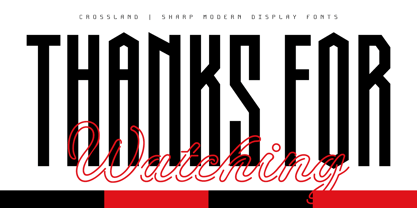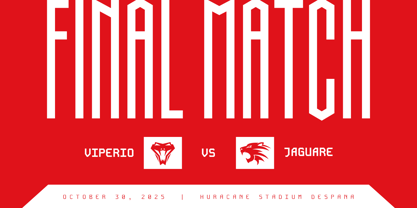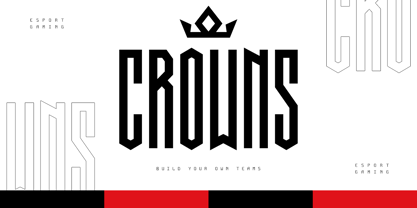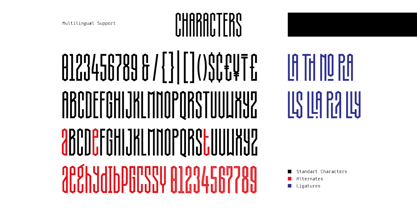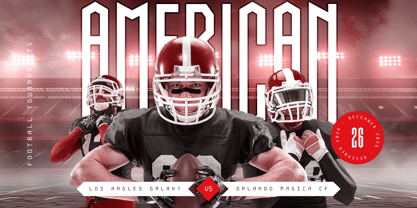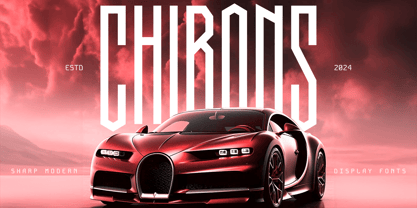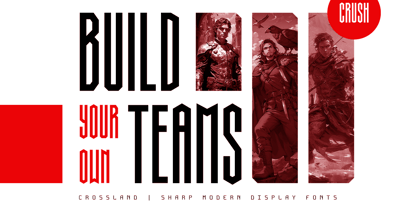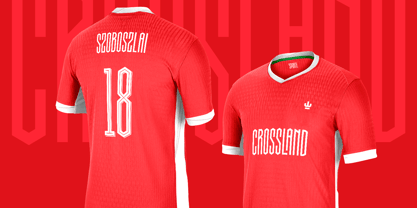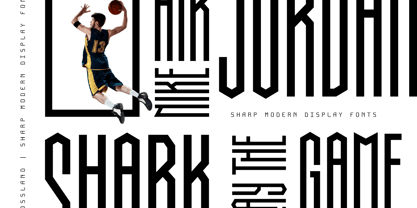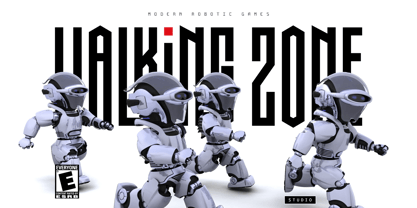
Crossland
by Namara Creative Studio
The Crossland Font Family was designed by Toni Setiawan and published by Namara Creative Studio. Crossland contains 3 styles and family package options.
Dynamic typeface designed for attention-grabbing headlines, sports branding, and any context requiring an energetic, commanding presence. Vertically stretched, giving the font a sleek, modern look with a sense of speed and dynamism.
Features :
• Tall Sport & Techno Cutting Edge with Futuristic Tech Looks.
• Alternates, Ligatures & Multilingual Support